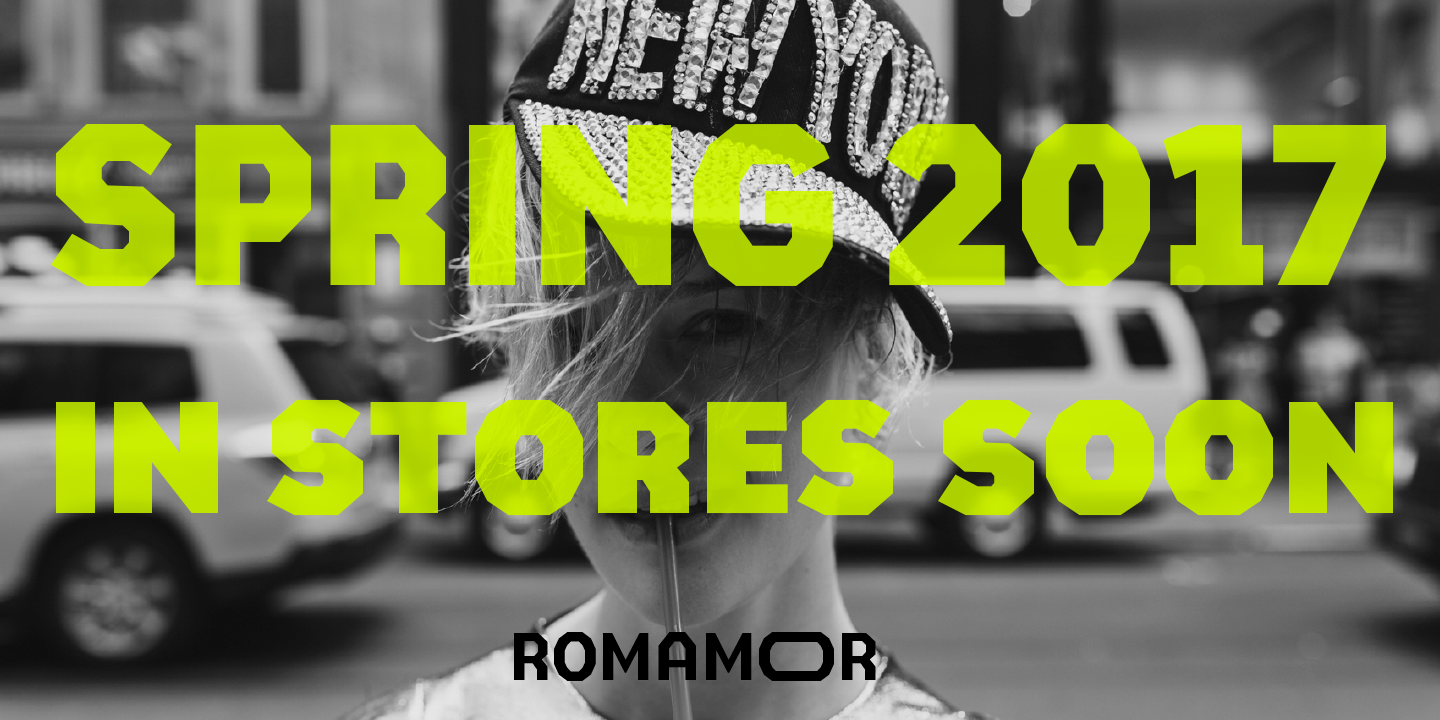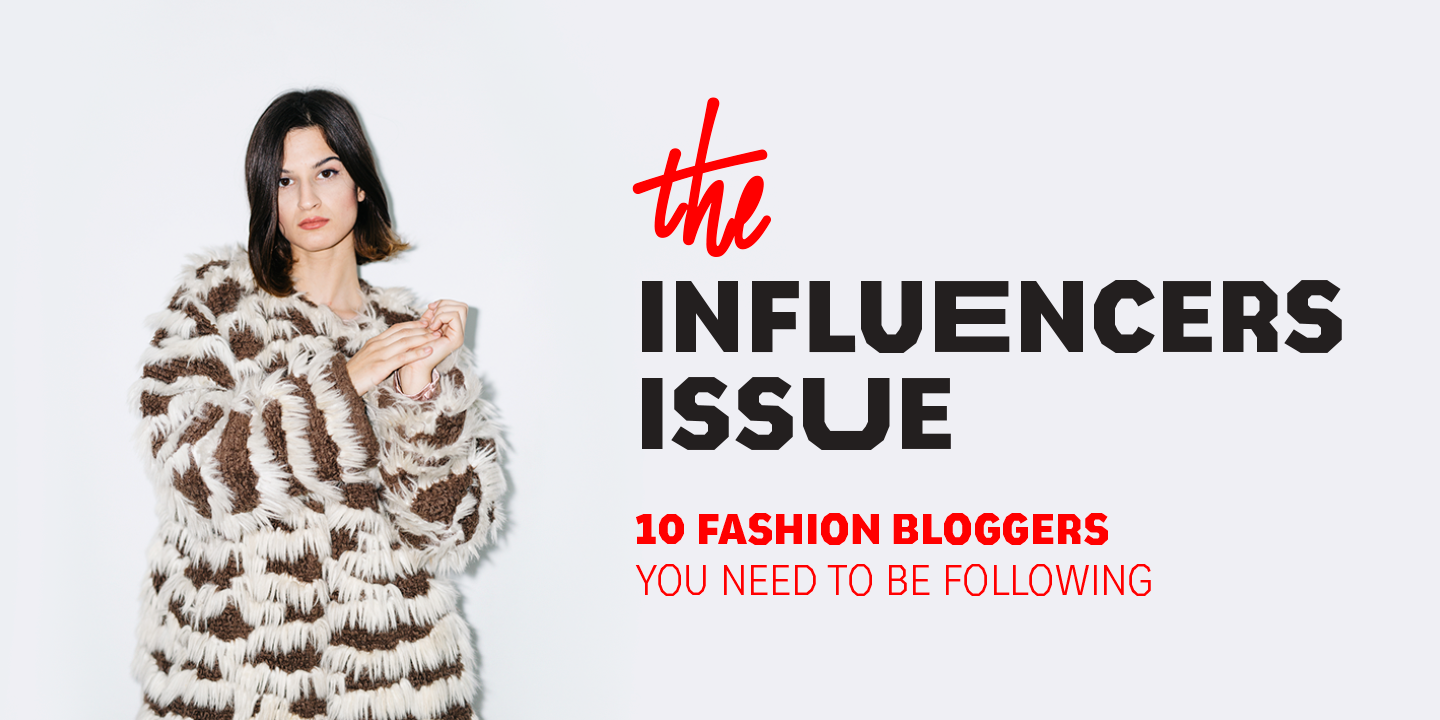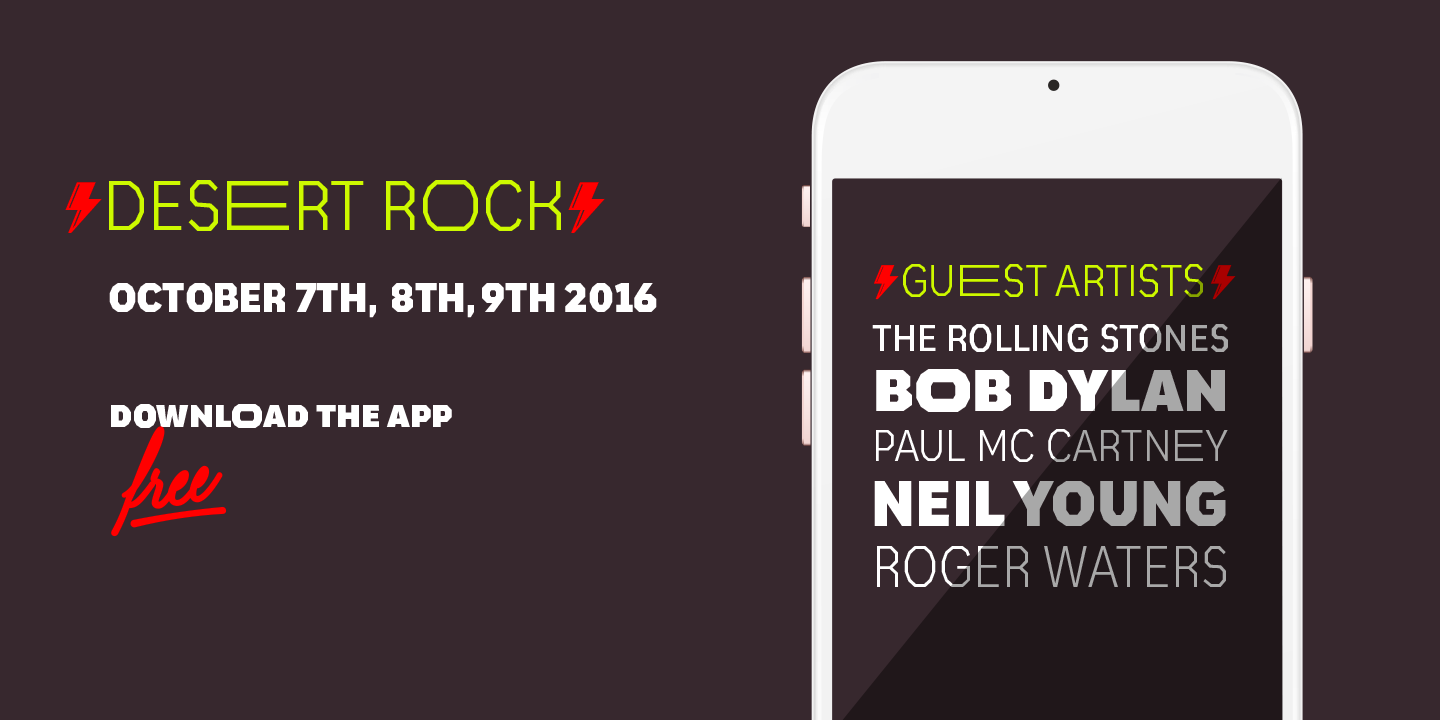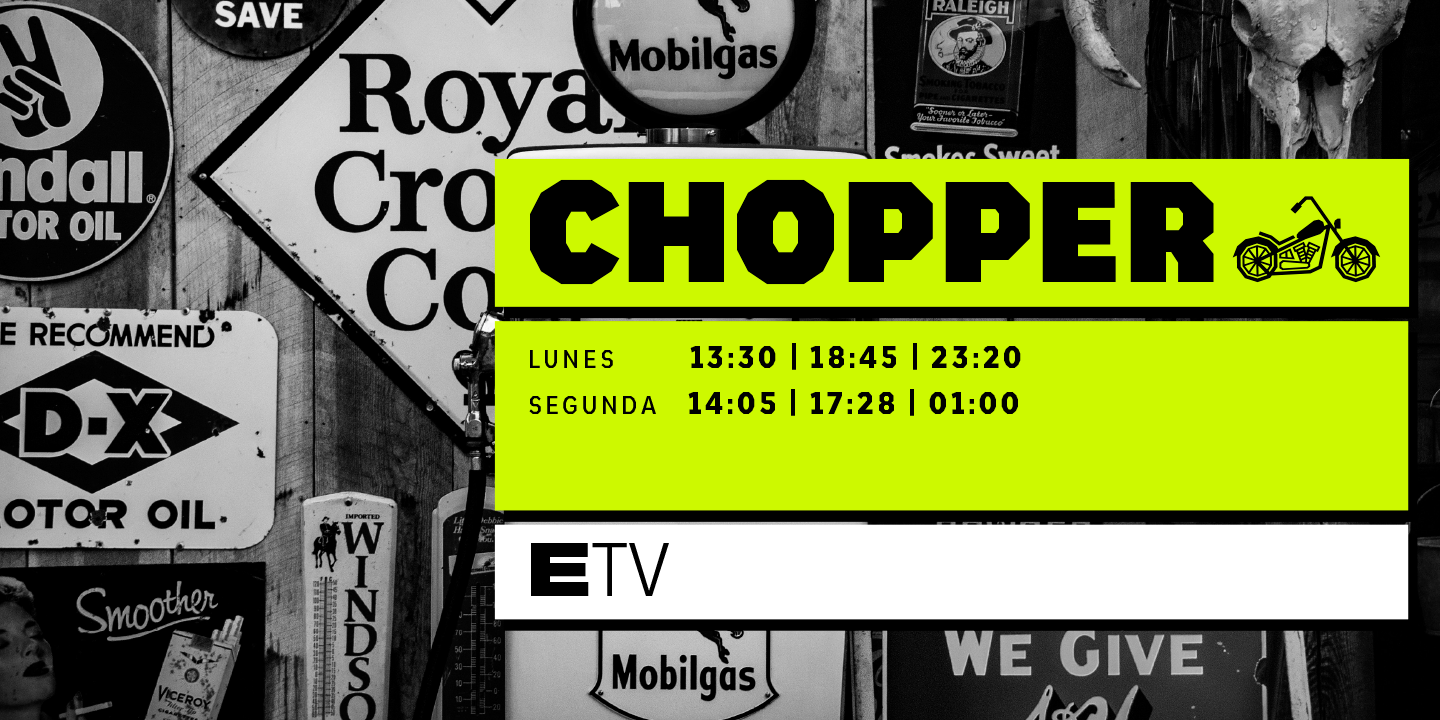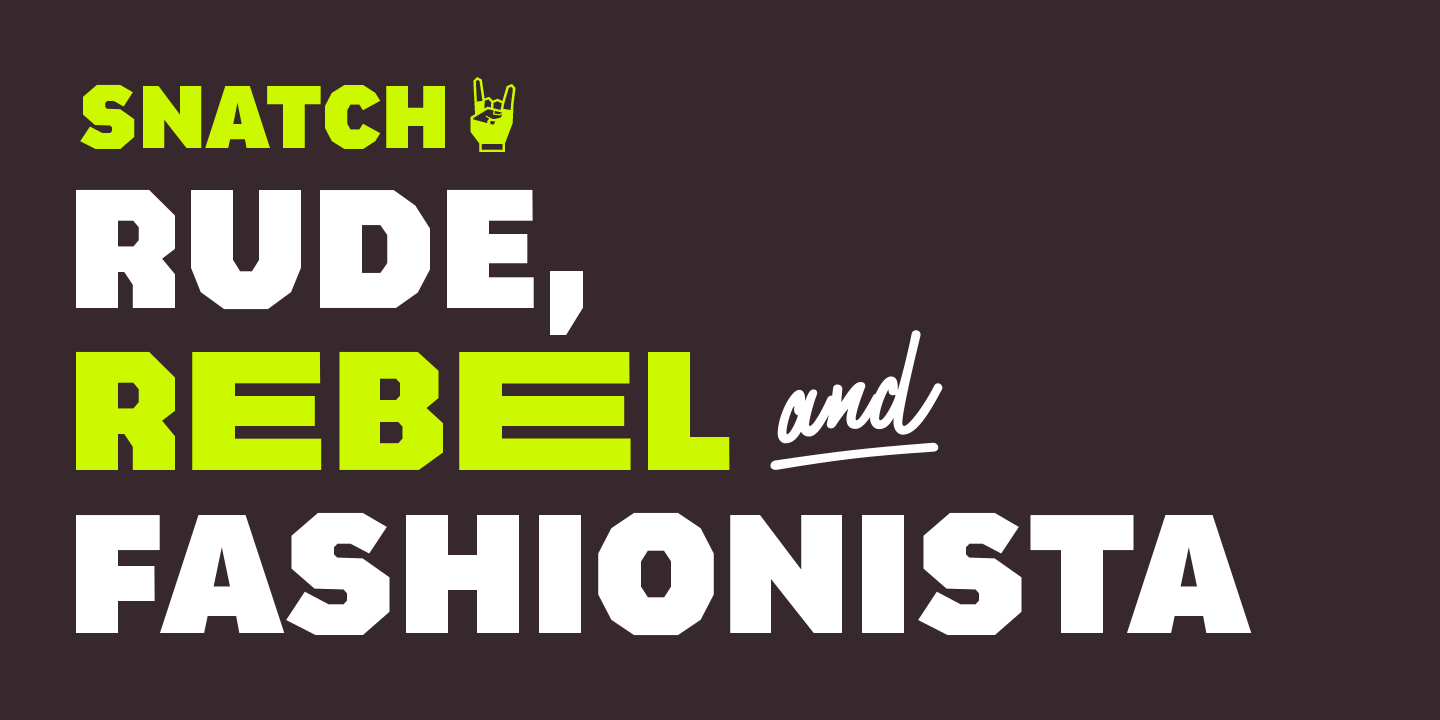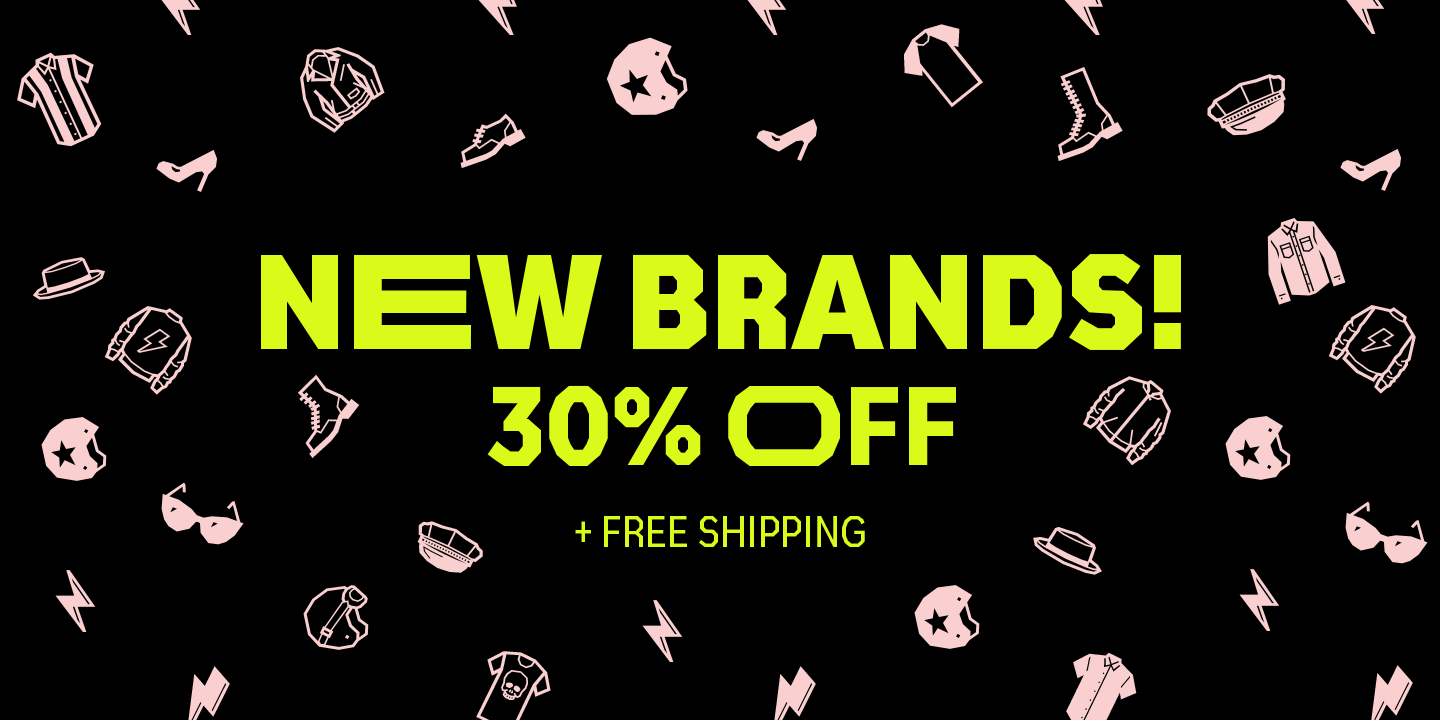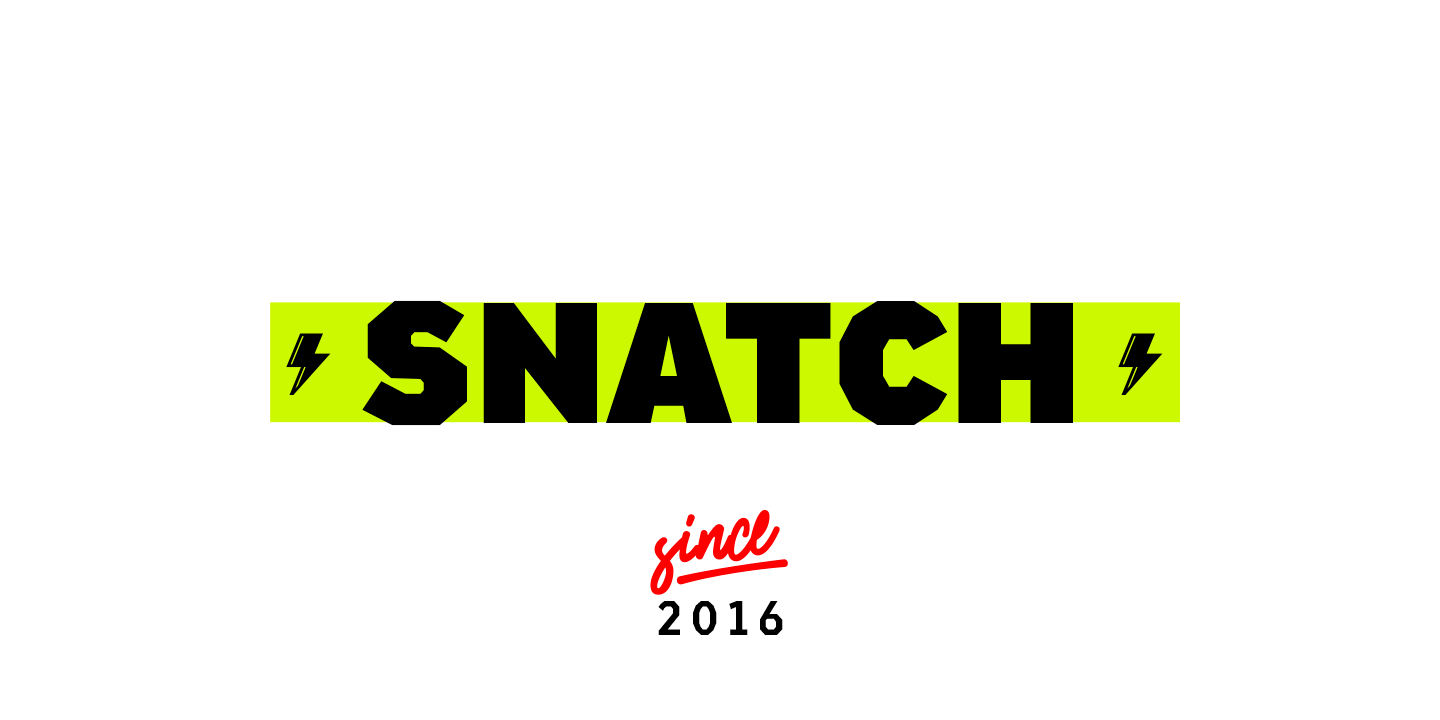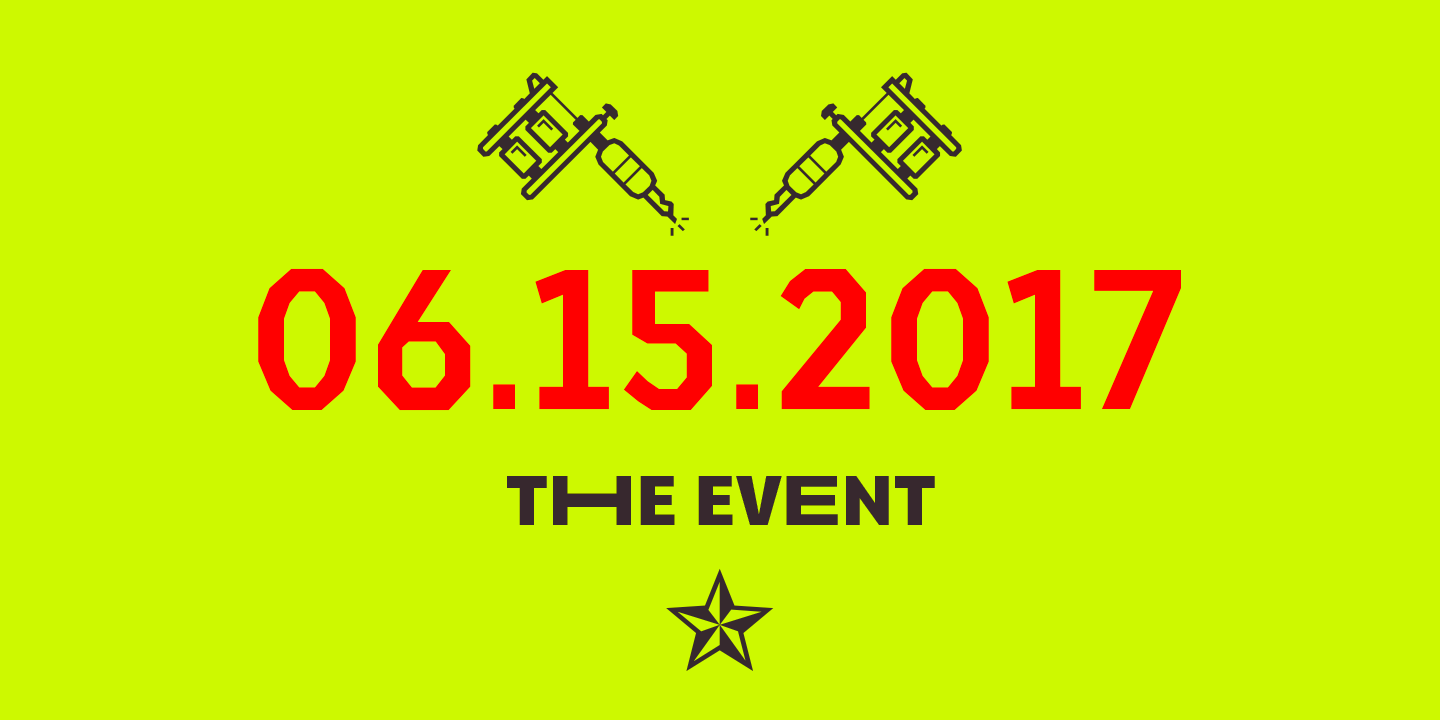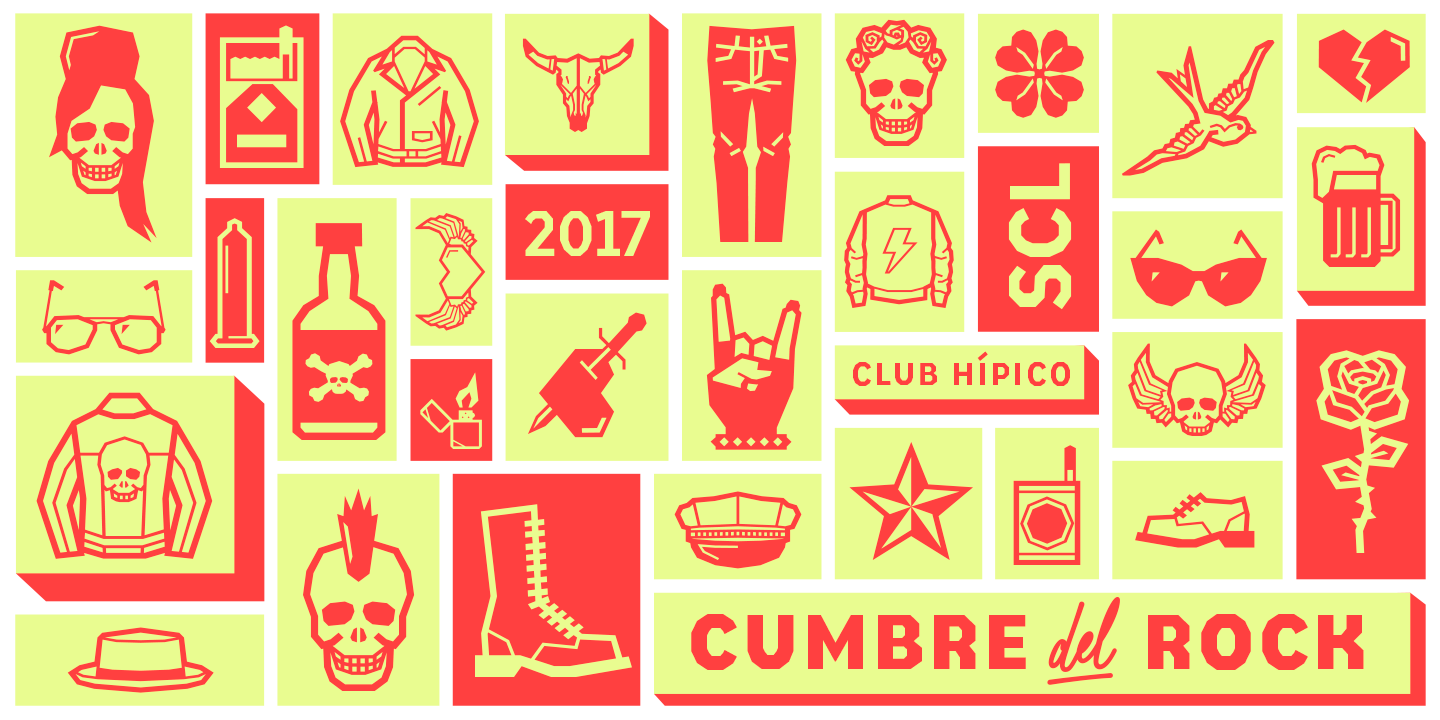
Snatch is composed of three sections: a group of sharp-shaped uppercase fonts (small caps and all caps) in 5 weights, a set of script catchwords and eclectic sets of dingbats and flags that communicate the blue-sky thinking and feel of the project.
Snatch—a collaborative project between Bercz and Latinotype Team—is the wild, condensed sister of BOWIE and it was developed by Valentina Vega, Rodrigo Fuenzalida and César Araya, under the supervision of Dany Berczeller, Daniel Hernández y Luciano Vergara.
The family consists of 5 weights, ranging from Thin to Black, and comes with a 679-character set that supports 206 languages.
OpenType features: Old-style Digits, Ligatures, Discretionary Ligatures, Alternates